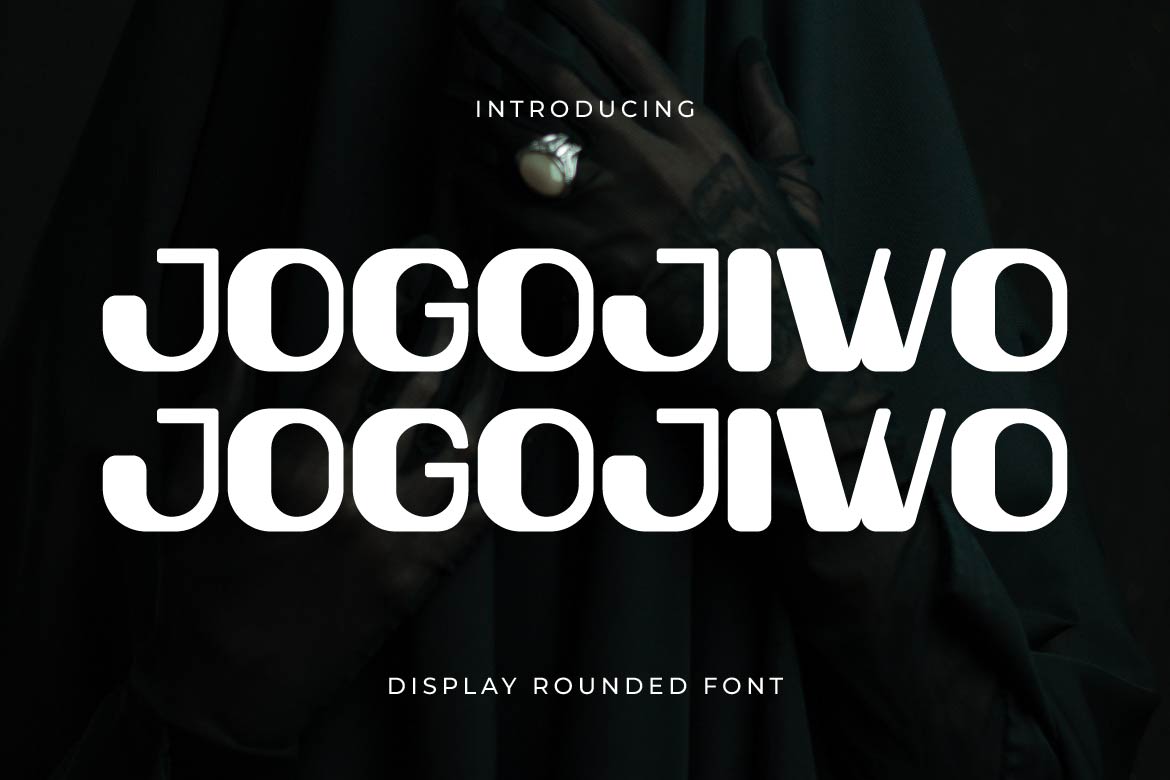
- Jogojiwo – Bold Rounded Display Font
Jogojiwo is a bold display typeface with a striking, confident presence. Its thick strokes and softly rounded terminals create a balance between strength and elegance, giving every word a commanding yet refined character.
The tall, condensed proportions and consistent geometric rhythm make Jogojiwo especially effective for short, powerful headlines and wordmarks. Its bold weight holds up beautifully at large sizes without losing the smooth, polished finish that sets it apart from heavier, more industrial display fonts.
Jogojiwo is well suited for luxury branding, fashion editorials, music and album artwork, dark and moody aesthetics, streetwear graphics, logo design, and any project that calls for a bold statement with a touch of mystery. Its confident structure also works well for magazine covers, poster design, and modern brand identities that want to stand out with quiet intensity.
Bold, sleek, and quietly powerful — Jogojiwo brings striking presence to modern typography.
Jogojiwo — a bold rounded display font with a confident, mysterious edge.